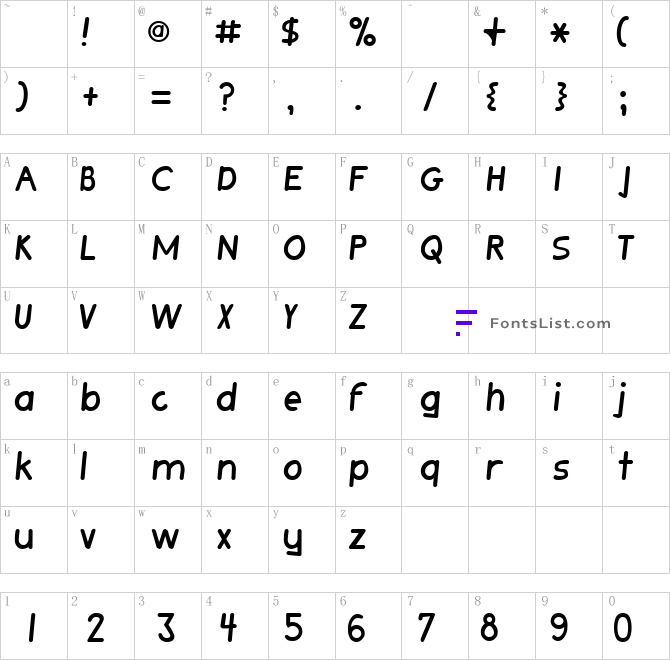
- Font Name:Aquillia
Aquillia-Bold.ttf is a very beautiful artistic font, Aquillia-Bold.ttf is widely used in the design and printing of various books and pictures,Aquillia-Bold.ttf has a strong visual impact,Aquillia-Bold.ttf is a commonly used font in newspapers, magazines and books, and is used in posters, e-commerce Poster design, store design, logo design, font design and other fields.Aquillia-Bold.